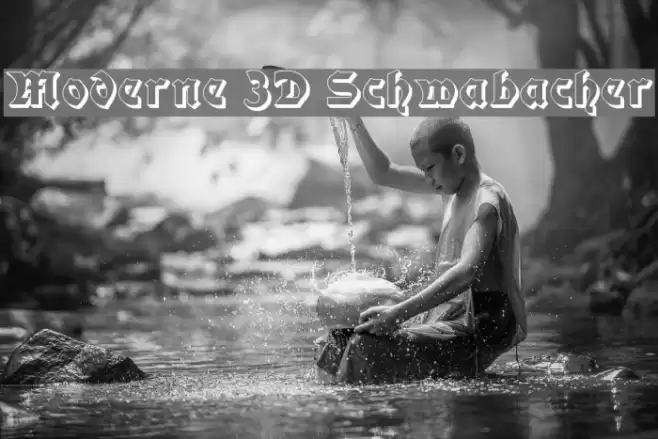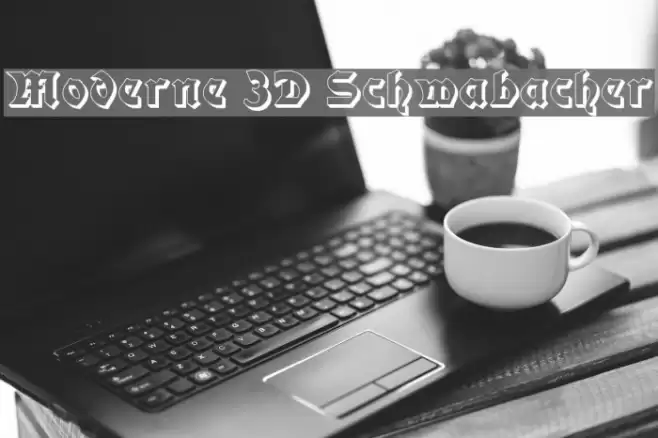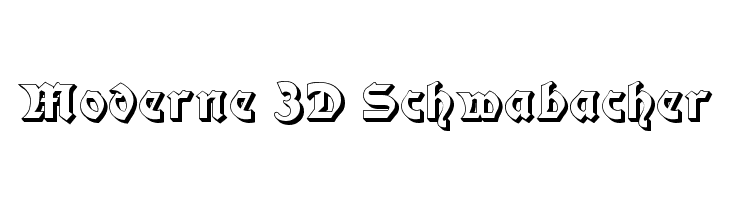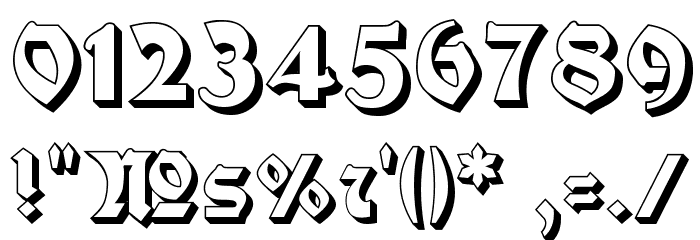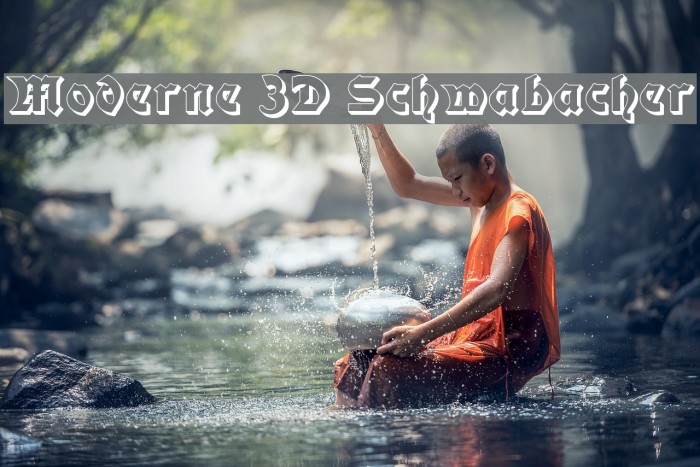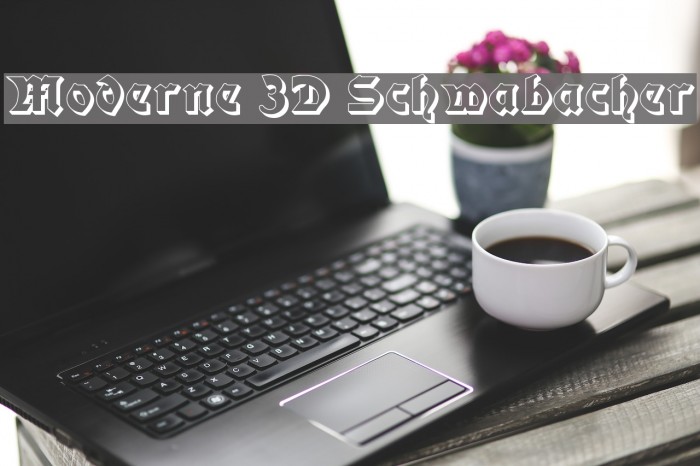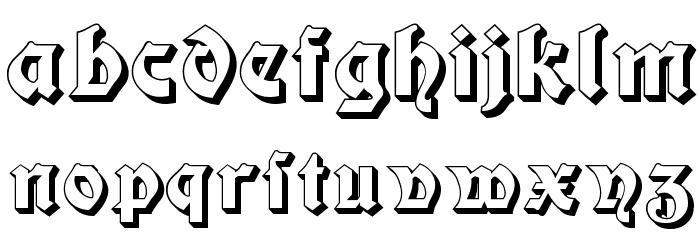
Moderne 3D Schwabacher Font
Moderne 3D Schwabacher Description
This font features a bold, three-dimensional Schwabacher style with a distinct blackletter influence. The characters are intricately designed with sharp angles and a shadow effect that gives them a striking, embossed appearance. The uppercase letters are particularly elaborate, with ornate flourishes and a strong presence. The lowercase letters maintain the same decorative style, ensuring consistency across the typeface. Numbers and special characters are equally detailed, making this font suitable for projects that require a dramatic and historical aesthetic.
A bold, 3D Schwabacher-style font with a blackletter influence and shadow effect from Uncategorized fonts.
- Proposed Projects: Ideal for historical-themed designs, book covers, posters, and branding that requires a dramatic and classic touch.